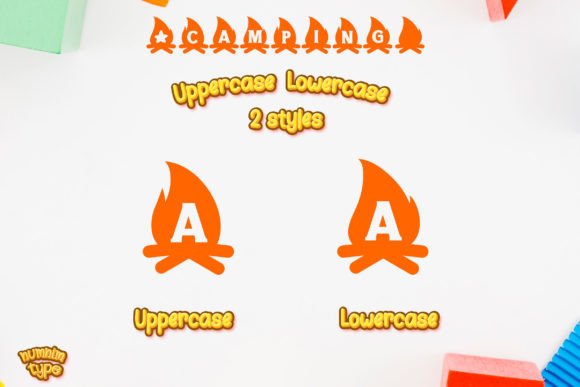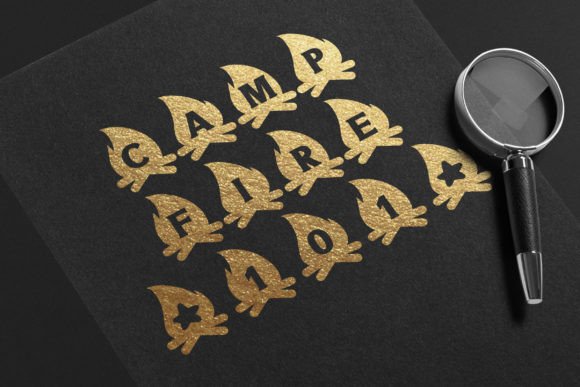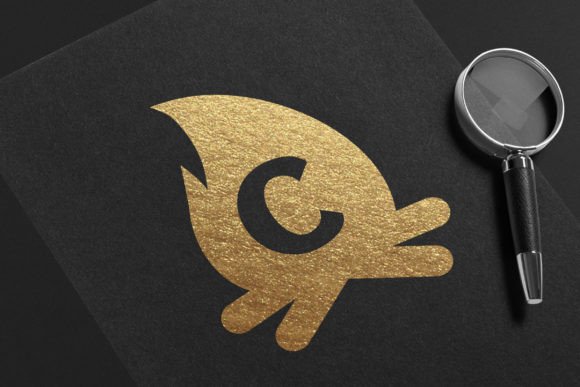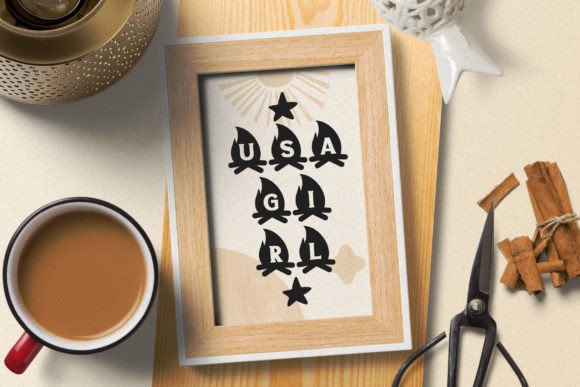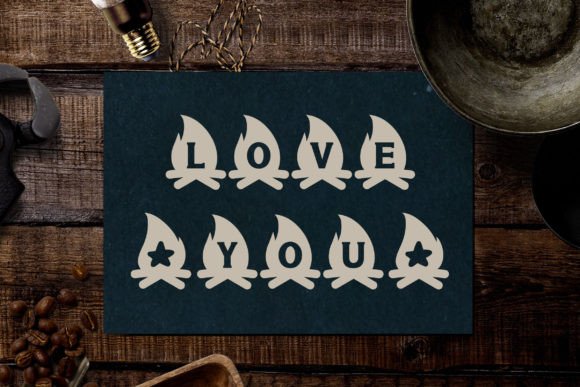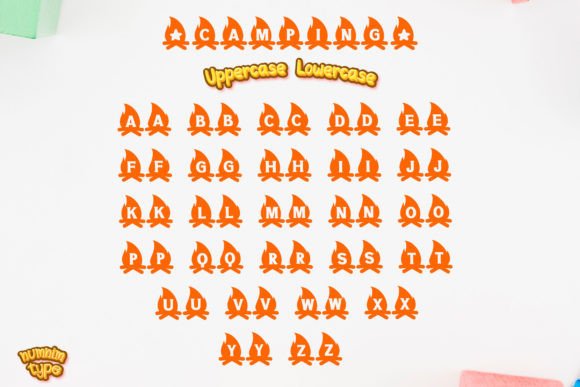
Camping Font: The Perfect Addition to Your Design Arsenal
Are you a designer or crafter looking for a unique and playful font to add to your collection? Look no further than the Camping Font! This adorable decorative display font is perfect for a variety of projects, from stickers and mugs to t-shirts and ornaments. In this article, we’ll dive into the features and benefits of the Camping Font, and explore how it can elevate your designs.
A Cute and Uniquely Crafted Font
The Camping Font is a one-of-a-kind font that is sure to capture the attention of your audience. Its fun and playful characters are designed to bring a sense of whimsy and adventure to your designs. Whether you’re creating event cards, party invitations, or promotional materials, this font is sure to make your project stand out.
One of the standout features of the Camping Font is its unique and handcrafted design. Each character has been carefully crafted to ensure that it is both visually appealing and highly legible. This makes it perfect for use in a variety of contexts, from large display headings to smaller body text.
The Camping Font is an incredibly versatile font that can be used in a wide range of projects. Some of the most popular uses for this font include:
- Stickers: Add a playful touch to your stickers with the Camping Font.
- Mugs: Create eye-catching mug designs that are sure to delight.
- T-shirts: Design unique and fun t-shirts that are perfect for casual wear.
- Ornaments: Add a personal touch to your ornaments with this charming font.
- Event cards: Create beautiful and memorable event cards for parties, weddings, and more.
One of the best features of the Camping Font is that it is PUA (Private Use Area) encoded. This means that you can access all of the glyphs and swashes with ease, giving you maximum flexibility and creative control.
PUA encoding allows you to access a wide range of additional characters and symbols that are not available in standard fonts. This means that you can add an extra layer of depth and interest to your designs, and create truly unique and eye-catching projects.
Why Choose the Camping Font?
So why should you choose the Camping Font for your next project? Here are just a few reasons:
- Unique and playful design: The Camping Font is a one-of-a-kind font that is sure to capture the attention of your audience.
- Highly versatile: This font can be used in a wide range of projects, from stickers and mugs to t-shirts and ornaments.
- PUA encoded: With PUA encoding, you can access all of the glyphs and swashes with ease, giving you maximum flexibility and creative control.
- Easy to use: The Camping Font is incredibly easy to use, even for designers who are new to working with fonts.
Tips for Using the Camping Font
Here are a few tips for getting the most out of the Camping Font:
- Experiment with different sizes and colors: The Camping Font looks great in a variety of sizes and colors, so don’t be afraid to experiment and find the perfect combination for your project.
- Pair with other fonts: The Camping Font pairs well with a variety of other fonts, so try combining it with other fonts to create a unique and eye-catching design.
- Use it sparingly: While the Camping Font is incredibly versatile, it can be overwhelming if used too much. Try using it sparingly to add a touch of whimsy and interest to your design.